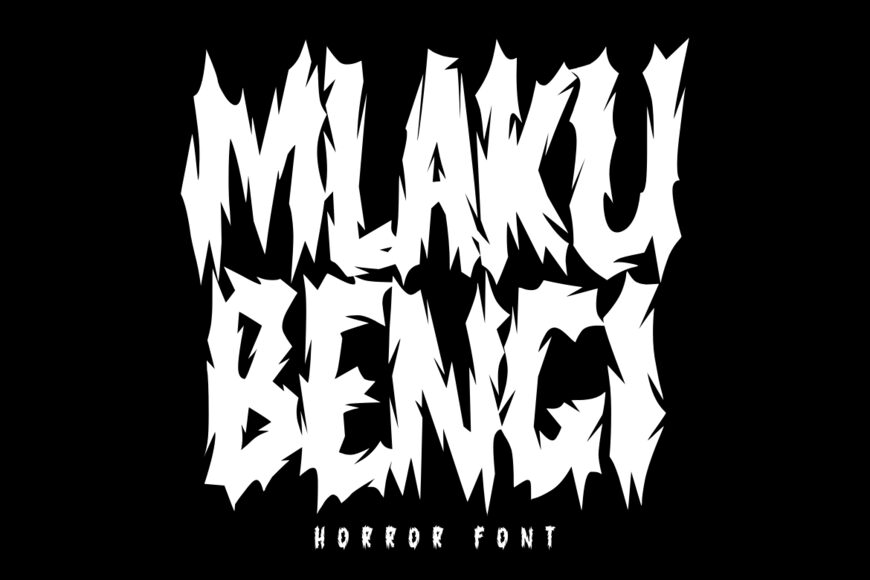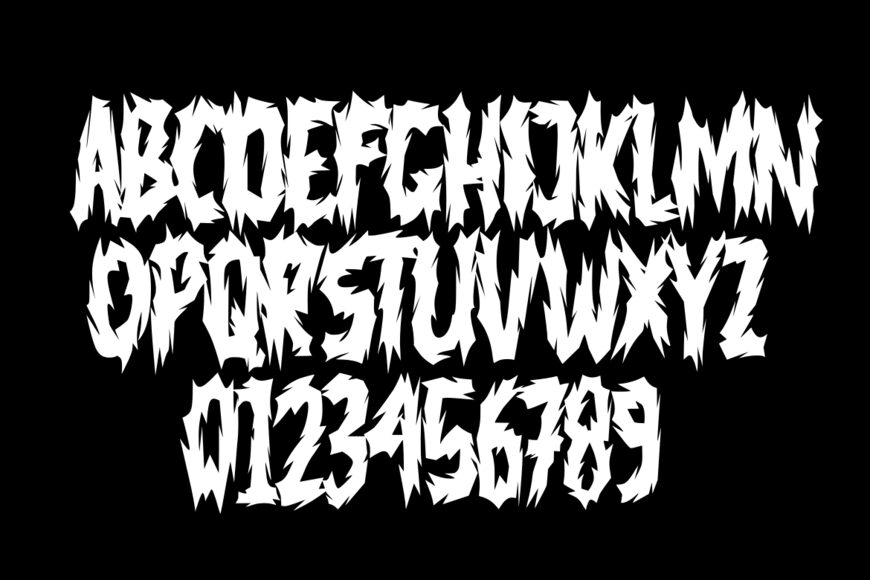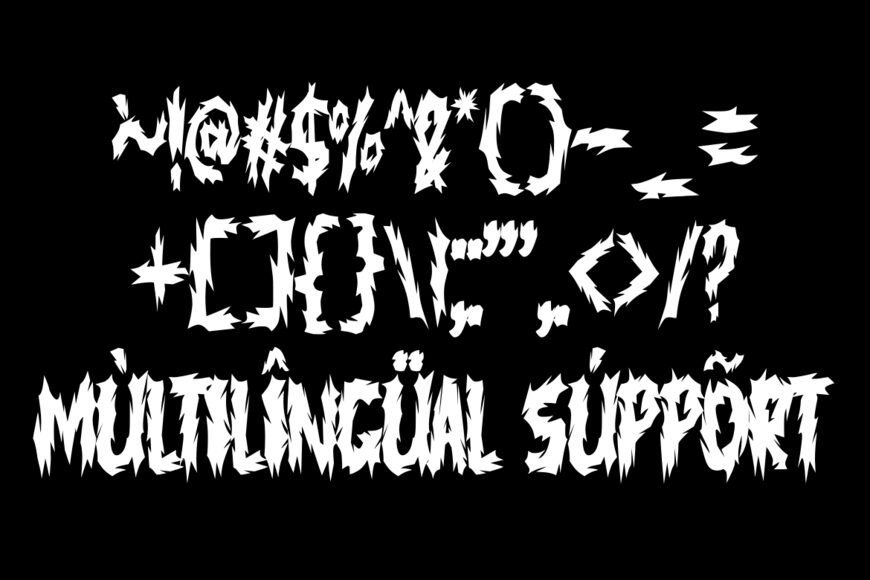
Mlaku Bengi is a creepy horror display font designed by GFRcreative. Its dark and unsettling style is perfect for horror-themed posters, movie titles, album covers, Halloween designs, logos, and other projects that need an eerie atmosphere.